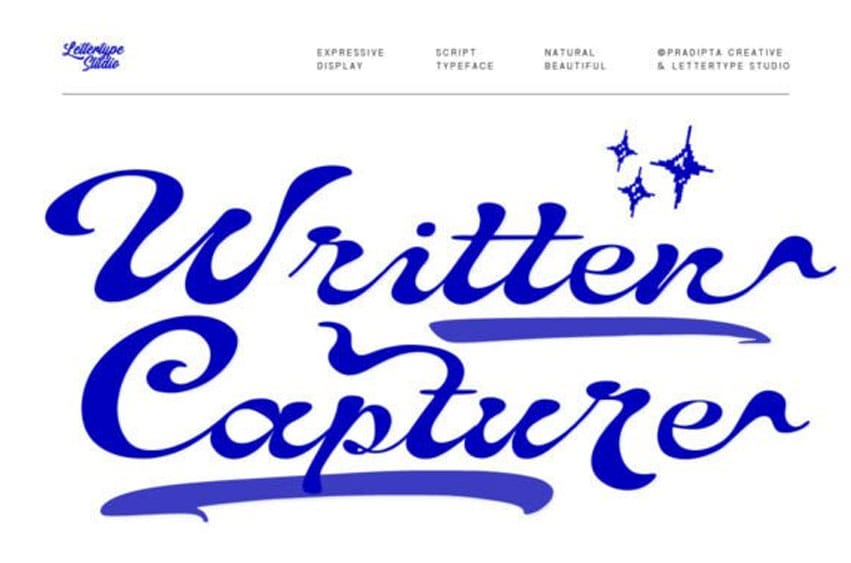
Written Capture Font was developed to reflect the expressive side of handwriting. Rather than aiming for perfect uniformity, the typeface embraces subtle irregularities that add warmth, movement, and personality to each word.
Freeze the beauty of the moment with the Written Capture font, an expressive display script that flows with natural elegance. This Written Capture typeface features dramatic, sweeping swashes and a thick-to-thin stroke variation that mimics the movement of a master’s brush. Perfectly suited for high-end photography watermarks, luxury brand logos, and artistic portfolio headers, the Written Capture font provides a sense of high-fashion and exclusivity.
Integrating the Written Capture typeface into your brand allows for a professional yet deeply artistic feel. It works exceptionally well as a standalone signature or as a high-contrast header paired with a minimalist sans-serif. The liquid-like flow of the characters makes it ideal for movement-based branding, such as dance studios, travel blogs, or luxury automotive ads. It’s more than a typeface; it’s a digital capture of creative energy.
Perfect For:
– Logo & Brand Identity
– Headlines & Titles
– Quotes & Short Statements
– Packaging & Label Design
– Posters & Social Media Graphics